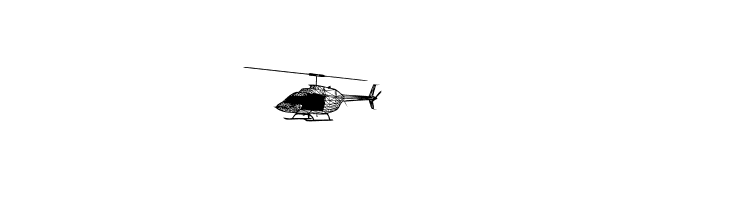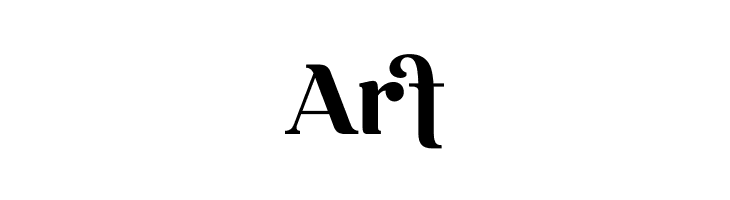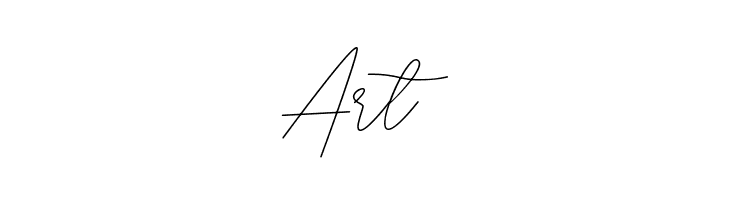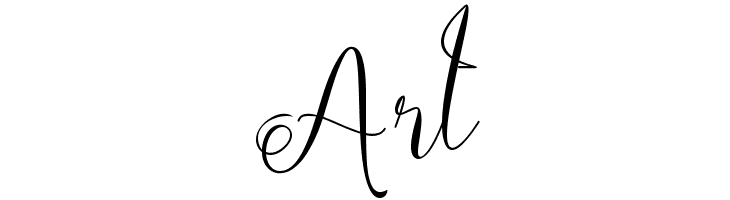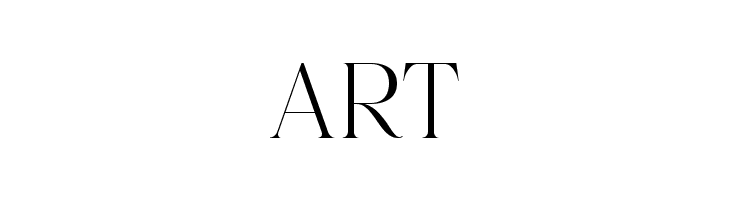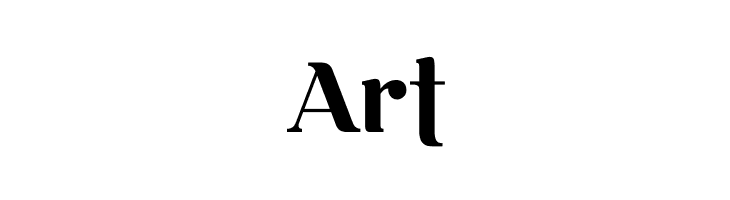
A whimsical, cursive-inspired font with elegant flourishes and smooth readability.
An elegant, flowing script font with decorative uppercase and fluid lowercase letters.
Playful handwritten script font.
A bold, decorative font with classic and modern elements, featuring sharp serifs and elegant curves.
A bold, high-contrast serif font with dramatic strokes and decorative elements.
A graceful and elegant script font with flowing curves and decorative swashes.
A sophisticated serif font with elegant, elongated strokes and refined presence.
Hand-drawn dingbat font with animal and object illustrations.
A fluid and elegant cursive font with smooth, flowing lines.
A sophisticated script font with elegant loops and swirls.